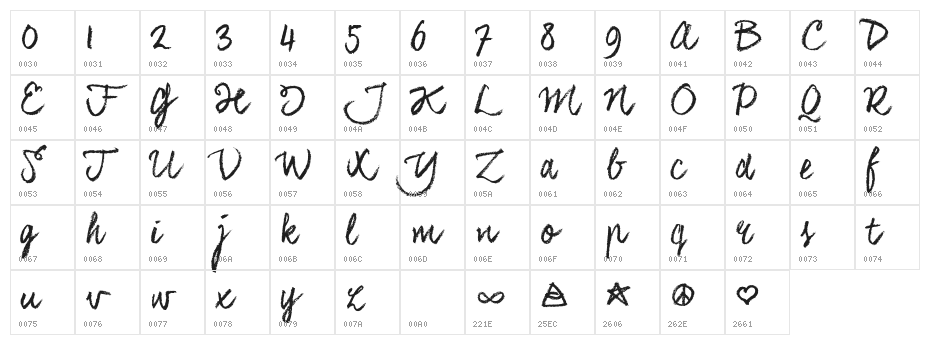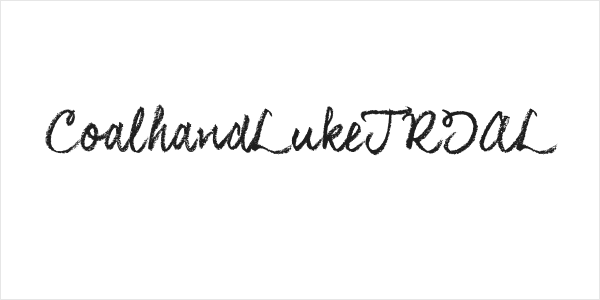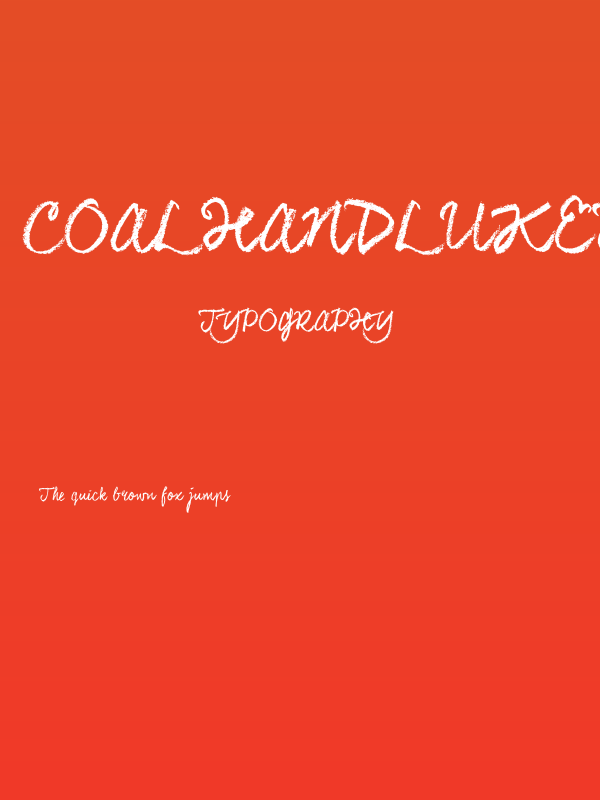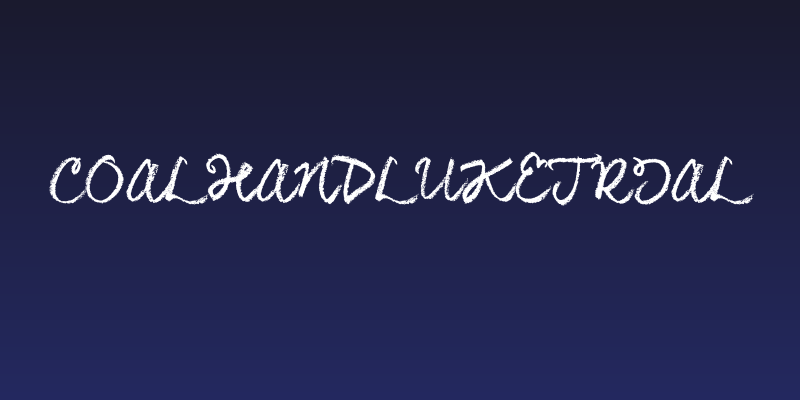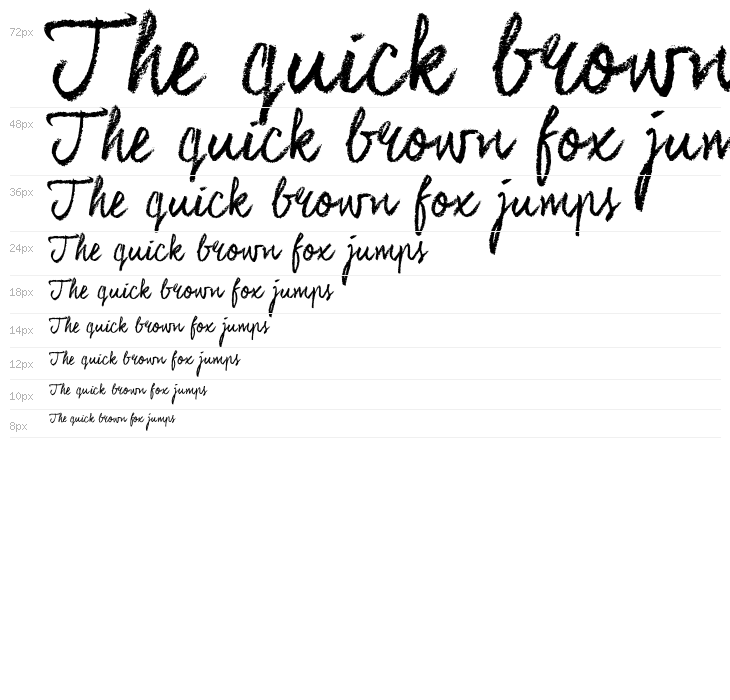
CoalhandLukeTRIAL Font
CoalhandLukeTRIAL Description
This font features a dynamic and expressive script style with a textured, brush-like appearance. The characters exhibit a fluid and natural flow, reminiscent of hand-drawn calligraphy. The uppercase letters are bold and slightly slanted, while the lowercase letters maintain a consistent rhythm and balance. The numbers are clear and legible, matching the overall aesthetic. The special characters integrate seamlessly, adding to the font's versatility. The texture gives it a rustic, artistic feel, making it suitable for creative and informal applications.
| Proposed Projects | Ideal for artistic projects, invitations, greeting cards, branding, and packaging design. |